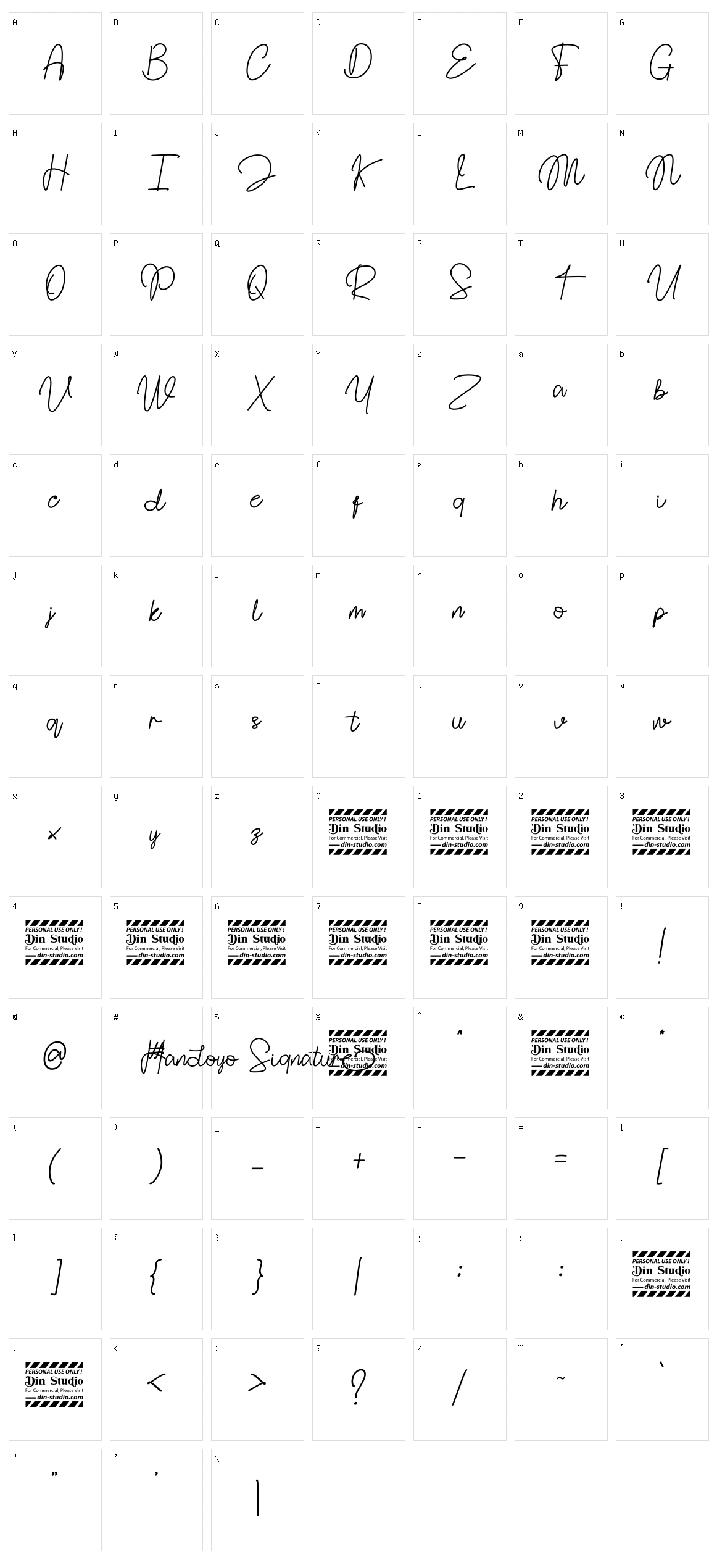
The free font Handoyo Signature is carefully designed by Din Studio, showcasing a thoughtful balance of creativity and usability and falls under the Script font style. When you download the ZIP file, it contains only 348.57 KB of font files, making it lightweight and quick to download. Please review the license details below to understand permitted usage and distribution rights. If license information is not available, we recommend using this font for personal projects only or contacting the author directly for commercial usage permissions.